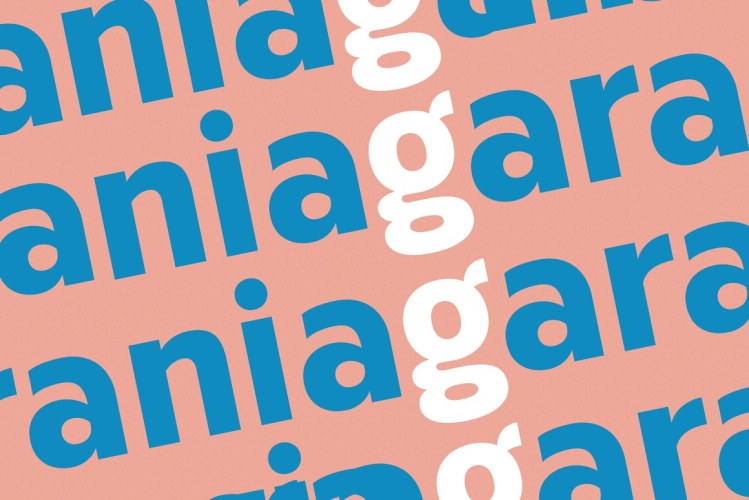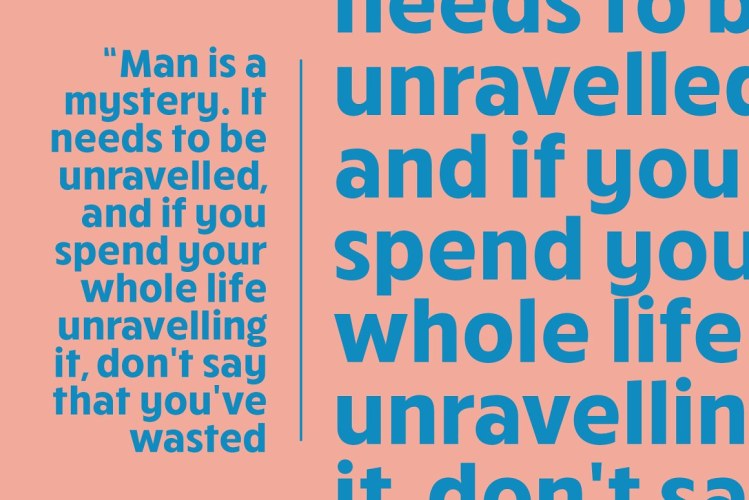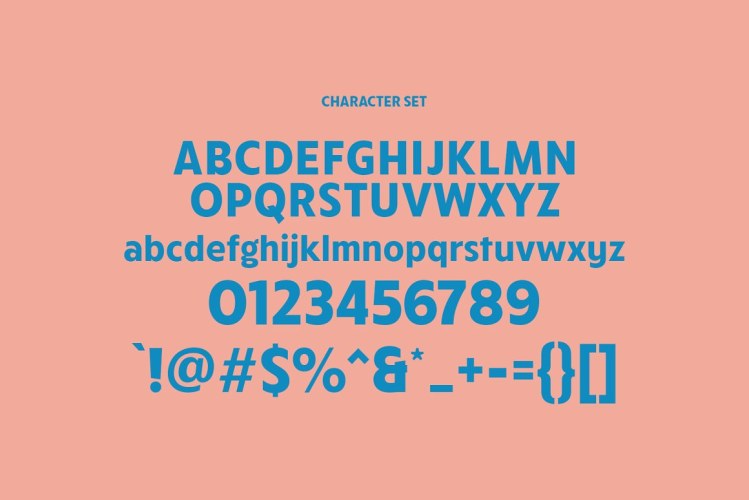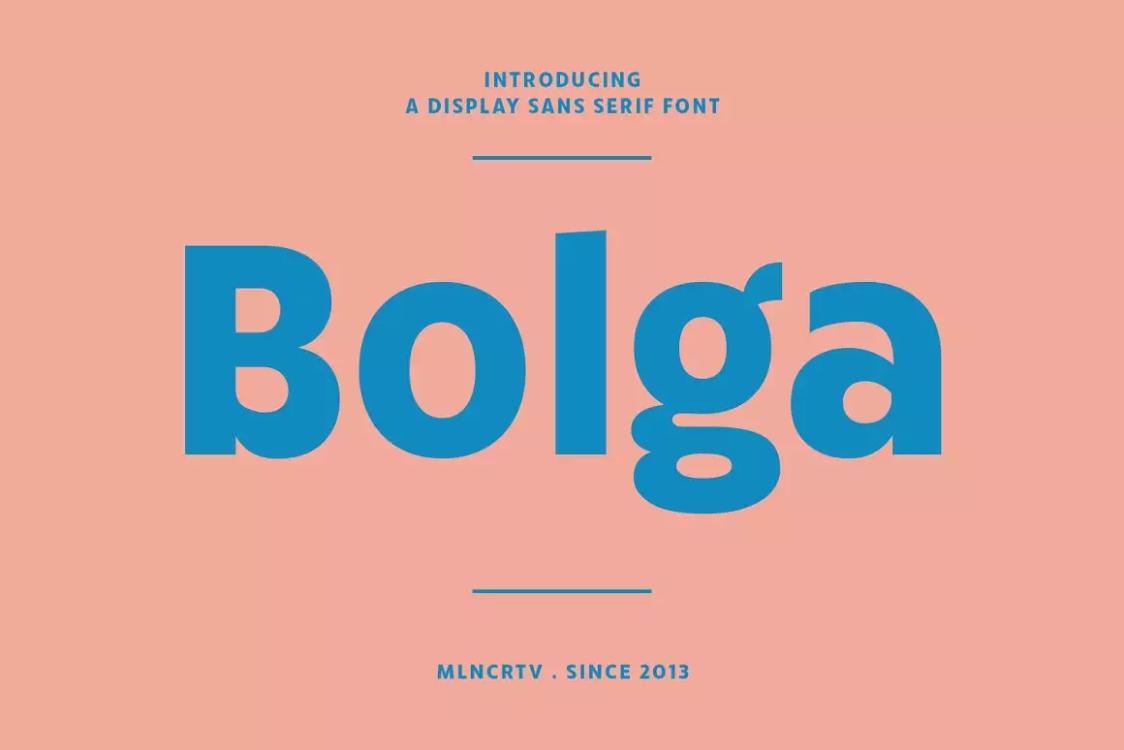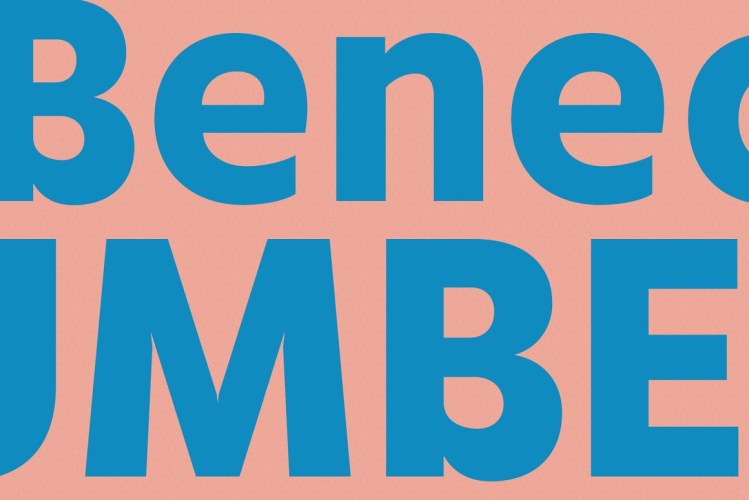
Bolga Display Sans Serif Font
Bolga is a modern decorative sans display font. Bold stroke, fun character with a bit of ligatures and alternates. To give you an extra creative work. Bolga font support…
Bolga is a modern decorative sans display font. Bold stroke, fun character with a bit of ligatures and alternates. To give you an extra creative work. Bolga font support multilingual more than 100+ language. This font is good for logo design, Social media, Movie Titles, Books Titles, a short text even a long text letter and good for your secondary text font with script or serif. Make a stunning work with Bolga font.
Where Bolga Display Sans Serif Font works best
Bolga Display Sans Serif Font is built for size: event posters, hero headlines and billboard-style layouts.
High contrast display type like Bolga Display Sans Serif Font reads instantly in thumbnails and motion graphics.
What is Bolga Display Sans Serif Font good for?